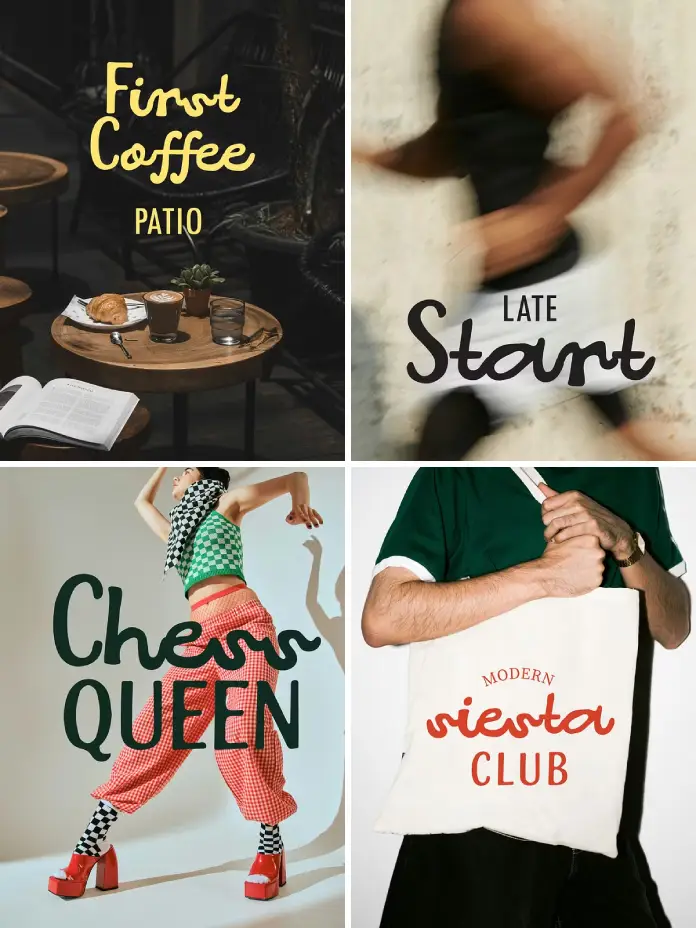
Typeface trends move fast. Yet some fonts arrive with a quality that makes them feel timeless before the trend even catches up. La Siesta, a contemporary handwritten font duo by Victoria Strukovskaya of Struvictory.art, is one of those rare designs. It doesn’t shout for attention. Instead, it earns it through contrast, rhythm, and a kind of typographic confidence that lifestyle brands increasingly need.
Why, then, is this font so relevant today? Due to a change in branding trends. Customers prefer human touch over corporate gloss, warmth over polish, and personality over perfection. That change is directly addressed by the La Siesta font. It combines an easy, casual lowercase script with bold, self-assured uppercase letterforms. That combination is strategic as well as aesthetically pleasing.
What Makes La Siesta Font a True Type Duo?
Most script fonts stand alone. They’re decorative, singular, and often fragile under real branding pressure. This typeface breaks that model entirely. It functions as a coordinated system — two distinct moods operating together as one voice.
The uppercase brings structure. Think clean, defined forms with visual weight that anchor a composition. The lowercase, meanwhile, flows. It carries the characteristic looseness of genuine handwriting — organic, warm, and unhurried. Together, these two registers create what I call the Contrast-Flow Principle: the idea that productive typographic tension generates rhythm rather than conflict.
This principle separates it from the vast majority of script typefaces on the market. Most font duos feel like a collision. La Siesta feels like a conversation.
The Contrast-Flow Principle Explained
Here’s what the Contrast-Flow Principle means in practice. When you set a brand name in bold uppercase La Siesta alongside a tagline in lowercase script, your eye doesn’t jump between them awkwardly. Instead, it travels — guided by the natural flow between weight and lightness.
That flow is deliberate. Strukovskaya designed the two styles to share an underlying rhythm. Consequently, they feel like they belong to the same design family. Most designers spend hours trying to pair fonts that achieve this. La Siesta gives you that relationship out of the box.
Why Lifestyle Brands Are Reaching for Script Font Duos Right Now
The branding landscape has changed significantly over the past few years. Social media aesthetics — particularly in fashion, beauty, and hospitality — have moved decisively toward hand-touched, artisan-feeling visual identities. Brands no longer want to look corporate. They want to feel like a recommendation from a stylish friend.
Script font duos fill that gap precisely. They carry human energy without sacrificing legibility. Nevertheless, most script fonts fail at scale. They look beautiful on a logo mockup and fall apart on a price tag or a storefront sign. This is exactly where La Siesta font distinguishes itself.
Structural Softness — A New Standard for Handwritten Fonts
I’d argue that La Siesta operates according to what I call Structural Softness — a type design quality where geometric precision provides invisible scaffolding for apparent spontaneity. The handwritten lowercase doesn’t look constructed. Yet it holds together at every size, in every context.
That’s not an accident. Strukovskaya built careful spacing and letterform balance into the design from the beginning. Therefore, La Siesta performs equally well at small point sizes on packaging and at large display scale on editorial spreads. Very few handwritten font duos can honestly claim that range.
La Siesta Font Features That Make It Exceptionally Versatile
Let’s get specific. La Siesta font includes multilingual support — a feature that many boutique script fonts ignore entirely. For brands operating across European markets, this alone changes the conversation. You don’t sacrifice personality for linguistic range. La Siesta handles both without compromise.
Additionally, the letterform balance between uppercase and lowercase is precisely calibrated. This means designers don’t need to manually adjust weight, optical sizing, or tracking to make the two styles look related. The work is done. You open the file and start designing.
Multilingual Support and Real-World Usability
Multilingual typography remains undervalued in the script font market. Most buyers only discover the gap when a client needs an umlaut or an accent mark. La Siesta anticipated this need. As a result, it works for French, German, Spanish, Portuguese, and other Latin-script languages without visual compromise.
Moreover, the font’s usability extends across media types. Logos, packaging, social media graphics, editorial spreads, storefronts, menus, and product tags — La Siesta maintains visual integrity across all of them. That consistency reflects what I describe as Sunlit Usability: the capacity for a warm, expressive typeface to function without friction across a designer’s full toolkit.
Can designers use La Siesta as a complete brand typography system?
Yes. La Siesta’s Type Duo Architecture makes it function as a self-contained typographic system. Most brand design projects in lifestyle and hospitality categories need no additional typeface when using La Siesta.